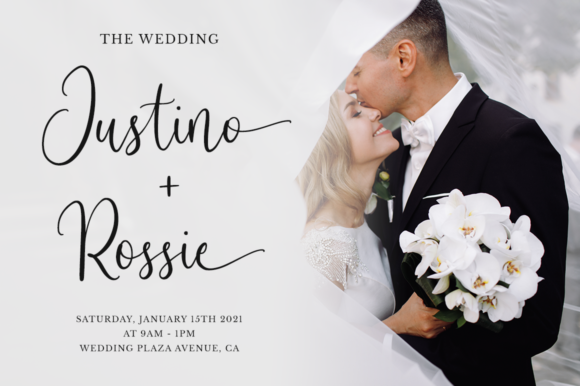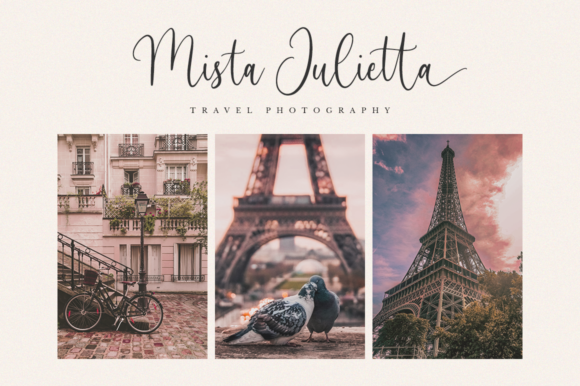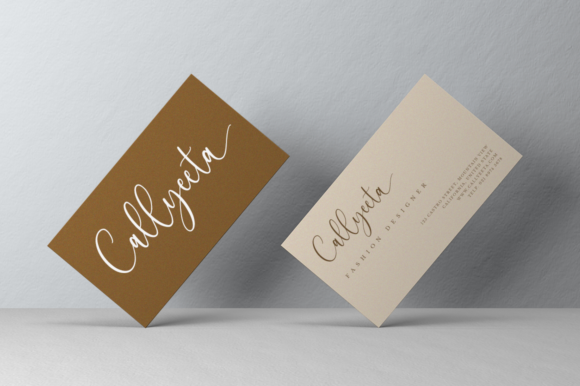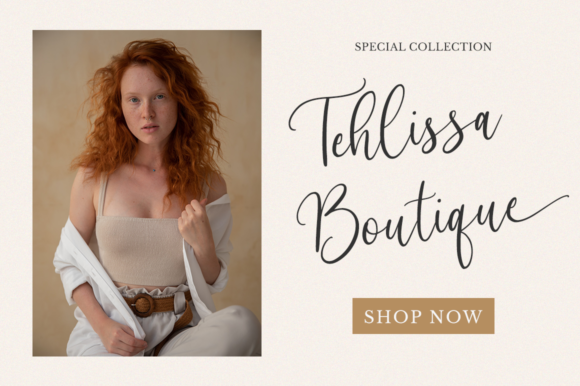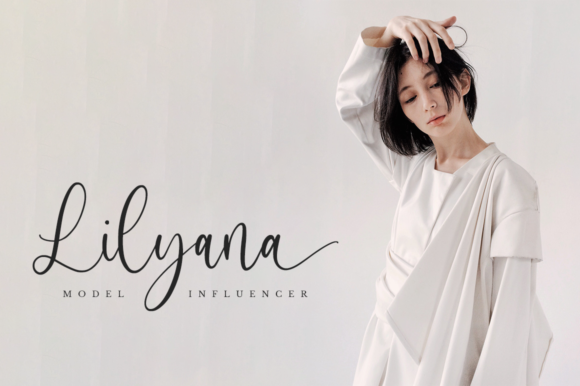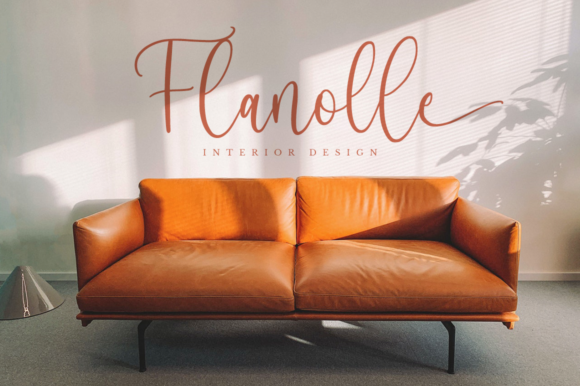
Bullvetti Font: The Ultimate Choice for Romantic Designs
In the world of typography, fonts play a crucial role in conveying the tone and personality of a design. For designers and crafters looking for a font that exudes romance and elegance, Bullvetti Font is an excellent choice. This ravishing, graceful, and cursive handwritten font has gained popularity for its beautiful and well-balanced characters, making it a perfect match for a wide range of romantic designs.
What Makes Bullvetti Font Stand Out?
Bullvetti Font is a stunning example of a handwritten font that has been crafted with precision and attention to detail. Its cursive style gives it a unique and sophisticated look, making it ideal for designs that require a touch of elegance. The font’s characters are beautifully balanced, ensuring that the text flows smoothly and is easy to read. Whether you’re working on a wedding invitation, a romantic quote, or a branding project, Bullvetti Font is sure to impress.
Key Features of Bullvetti Font
- Ravishing and Graceful: Bullvetti Font boasts a stunning cursive style that adds a touch of sophistication to any design.
- Well-Balanced Characters: The font’s characters are carefully crafted to ensure that the text is easy to read and visually appealing.
- Romantic and Elegant: Bullvetti Font is perfect for designs that require a romantic and elegant touch, such as wedding invitations, love quotes, and branding projects.
- Versatile: The font can be used for a wide range of designs, from digital projects to print materials.
How to Use Bullvetti Font in Your Designs
Using Bullvetti Font in your designs is easy and straightforward. Here are a few tips to get you started:
- Pair it with Other Fonts: Bullvetti Font pairs well with other fonts, such as sans-serif fonts, to create a visually appealing contrast.
- Experiment with Colors: The font looks great in a variety of colors, from soft pastels to rich jewel tones.
- Use it for Headings and Titles: Bullvetti Font is perfect for headings and titles, where its elegant and cursive style can be showcased.
Benefits of Using Bullvetti Font
There are several benefits to using Bullvetti Font in your designs:
- Unique and Distinctive: The font’s cursive style and well-balanced characters make it stand out from other fonts.
- Easy to Read: The font’s clear and legible style ensures that the text is easy to read, even at small sizes.
- Time-Saving: With Bullvetti Font, you can create professional-looking designs quickly and easily.
Who Can Benefit from Using Bullvetti Font?
Bullvetti Font is a versatile font that can be used by a wide range of designers and crafters, including:
- Graphic Designers: Bullvetti Font is perfect for graphic designers working on branding projects, logos, and marketing materials.
- Wedding Planners: The font’s romantic and elegant style makes it ideal for wedding invitations, stationery, and decor.
- Crafters: Bullvetti Font can be used for a variety of craft projects, such as card making, scrapbooking, and DIY decor.
In conclusion, Bullvetti Font is a stunning and elegant font that is perfect for designers and crafters looking for a romantic and cursive handwritten font. Its beautiful and well-balanced characters make it a versatile font that can be used for a wide range of designs, from wedding invitations to branding projects. With its ease of use and unique style, Bullvetti Font is sure to become a favorite among designers and crafters.